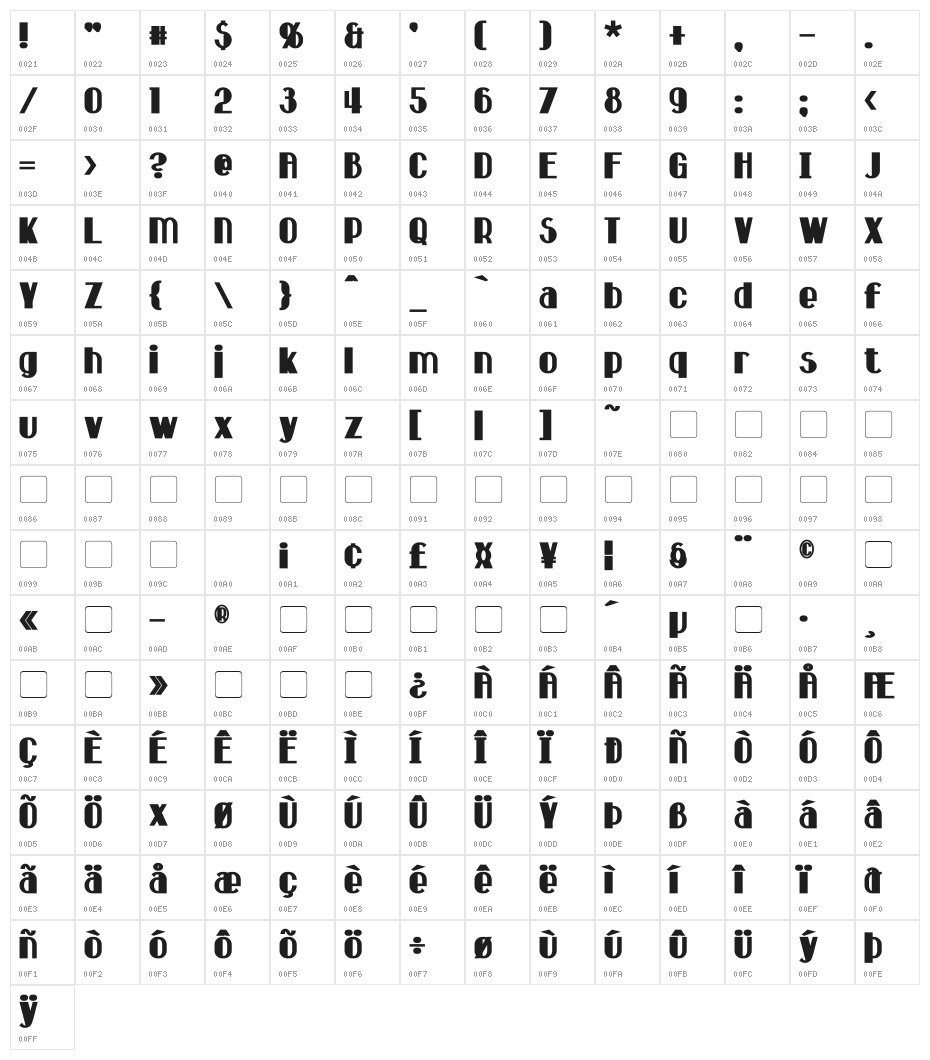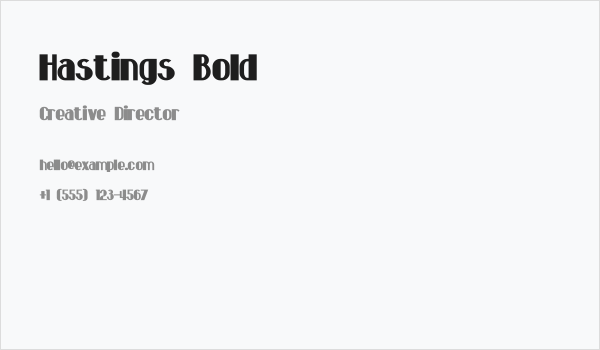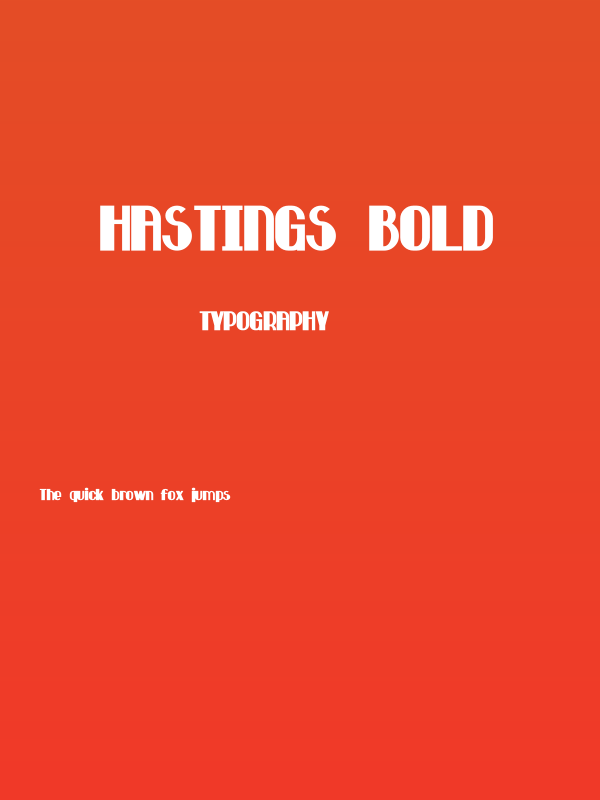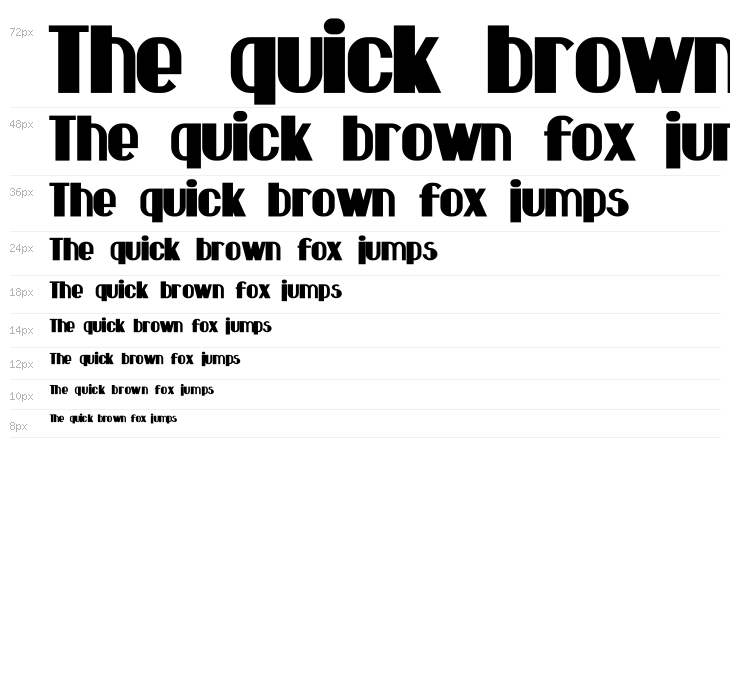
Hastings Bold Font
Hastings Bold Description
This bold, modern font features strong geometric shapes and a high contrast between thick and thin strokes. The uppercase letters are particularly striking, with a blocky, robust appearance that commands attention. The lowercase letters maintain a consistent style, offering a harmonious balance with the uppercase. Numbers and special characters are designed with the same boldness, ensuring readability and impact. The overall design is clean and contemporary, making it suitable for a variety of applications where a strong visual presence is desired.
| Proposed Projects | Ideal for branding, headlines, posters, and any design requiring a bold statement. |